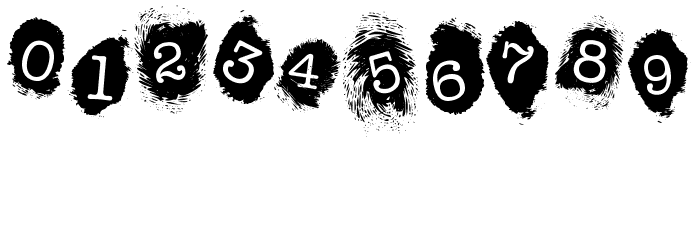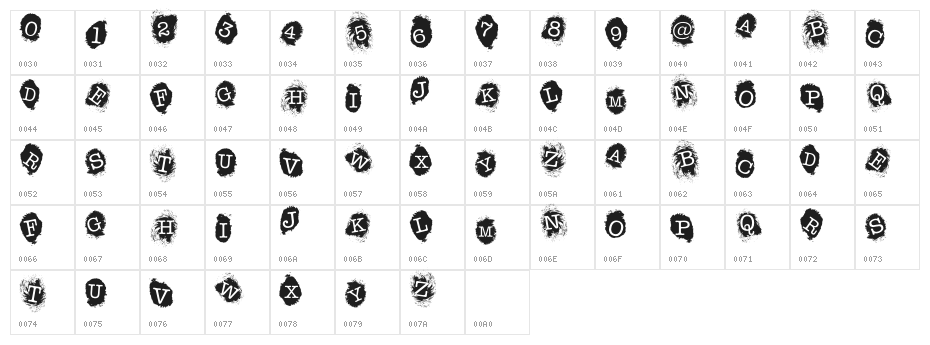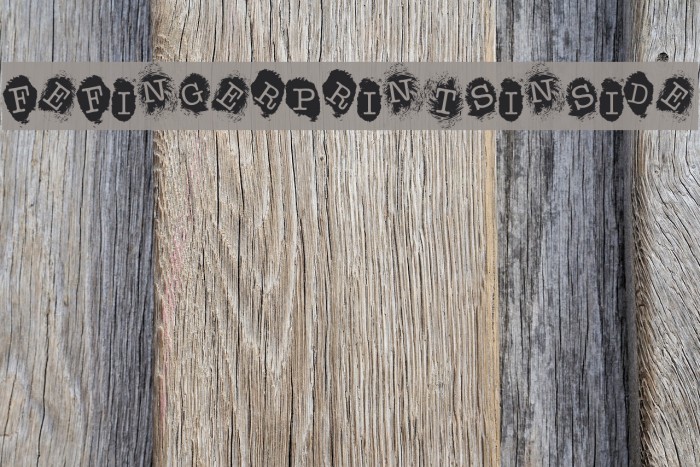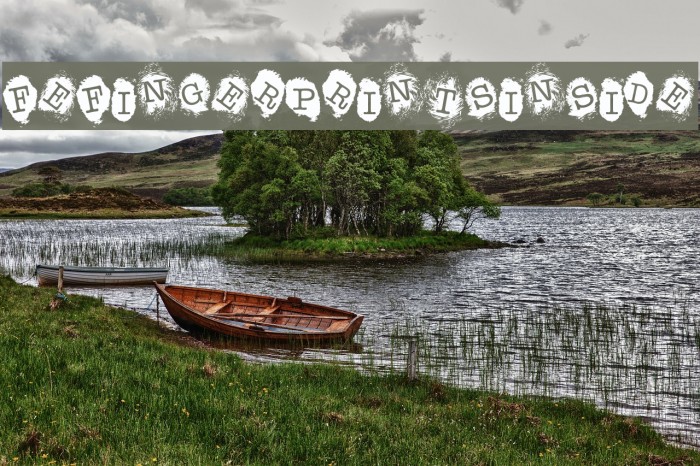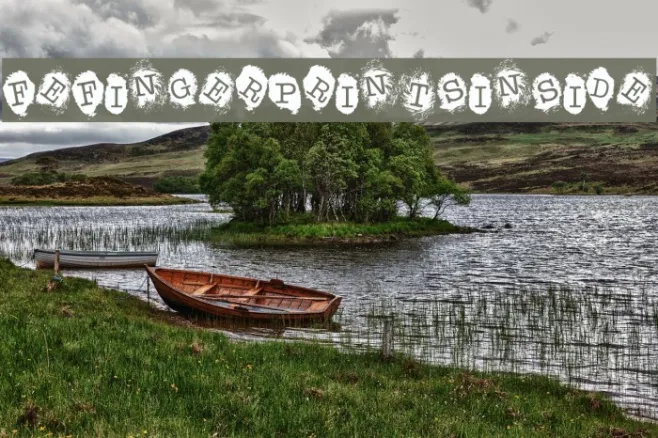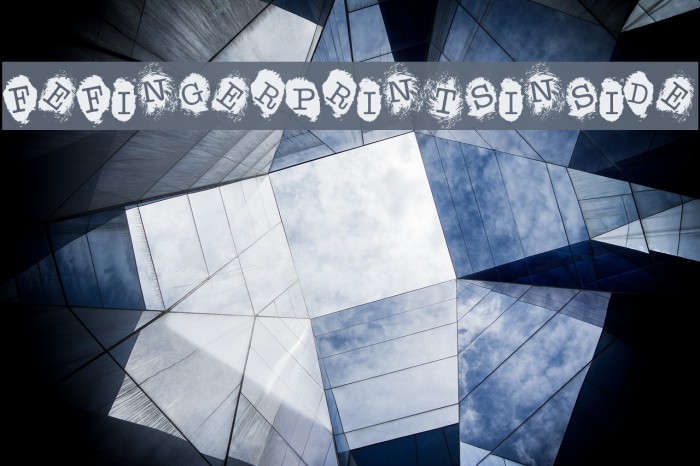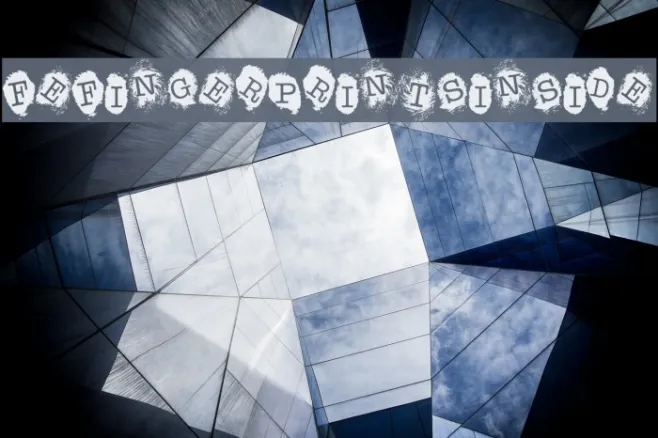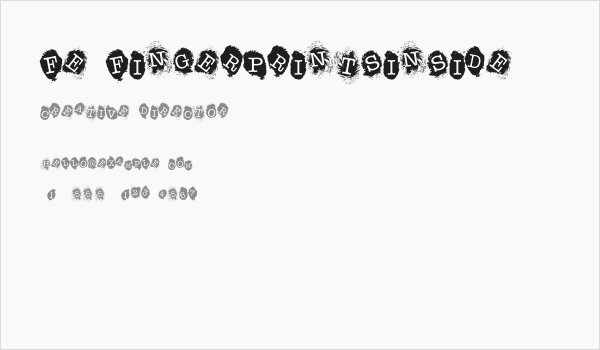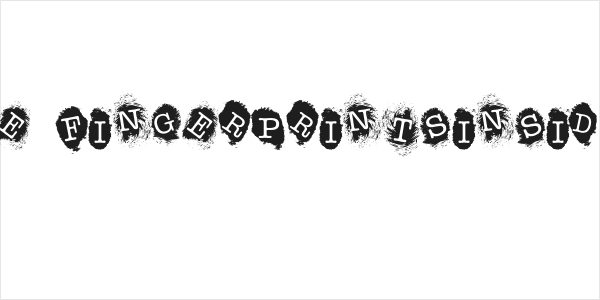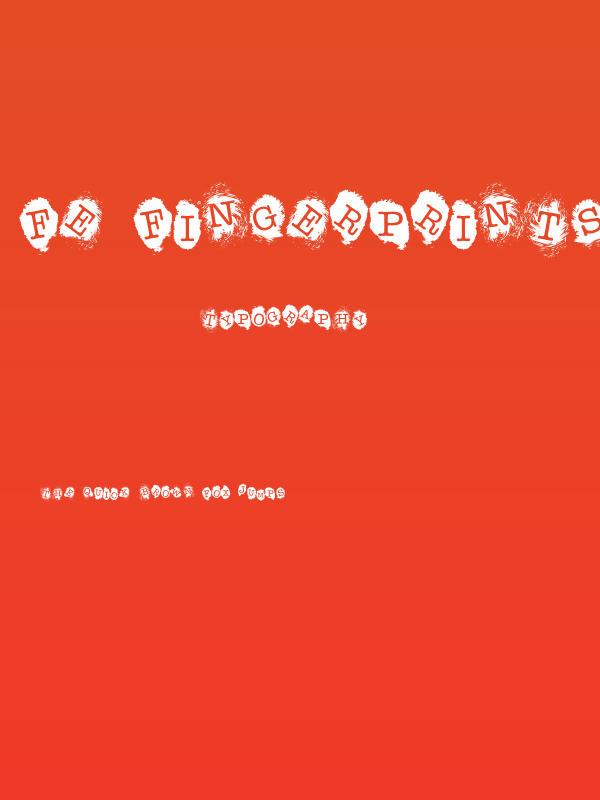
FE-FingerprintsInside Font
FE-FingerprintsInside Description
This font features a unique and bold design where each character is enclosed within a fingerprint-like shape, creating a striking and textured appearance. The letters and numbers are white against a black background, enhancing their visibility and impact. The font has a playful yet edgy style, making it suitable for creative and unconventional projects. The distinct fingerprint pattern adds a layer of intrigue and individuality to each character, making it stand out in any design. The overall aesthetic is both modern and artistic, appealing to those looking for a font with personality and flair.
| Overall Style | Modern, Artistic |
| Proposed Projects | Ideal for posters, album covers, branding for edgy or artistic products, and creative event invitations. |